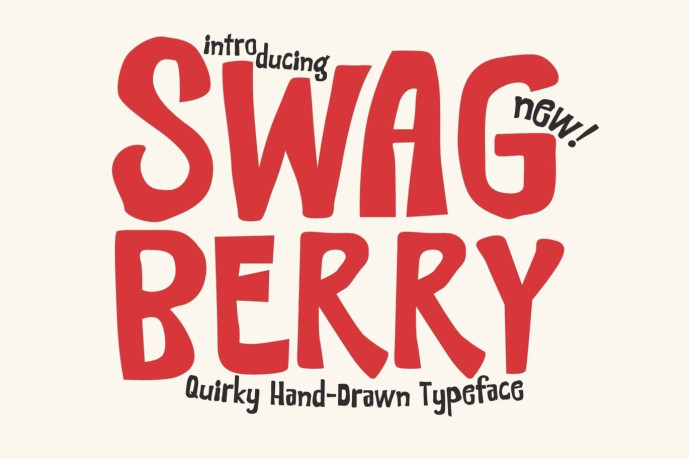
Swagberry Font
Swagberry Font a bold and original hand-drawn typeface brimming with playful energy, retro charm, and youthful personality. Designed with expressive curves and a laid-back attitude, Swagberry brings a vibrant and carefree touch to any space.
This unique display typeface embraces imperfections. Its organic shapes and relaxed fluidity give it a natural, handcrafted feel that stands out from clean, rigid typography. The result is a fun, friendly, and characterful font.
Swagberry’s retro-inspired style makes it ideal for both nostalgic and modern designs. Its bold presence ensures your text doesn’t just stay on the page; it stands out, grabs attention, and leaves a lasting impression.Whether it’s creating bold headlines or crafting a playful brand image, Swagberry offers a dynamic and expressive typographic voice.